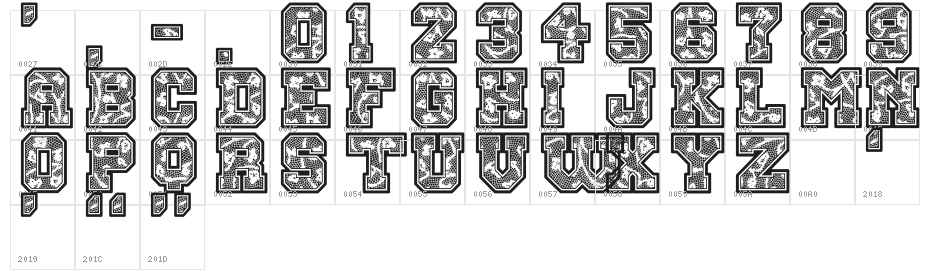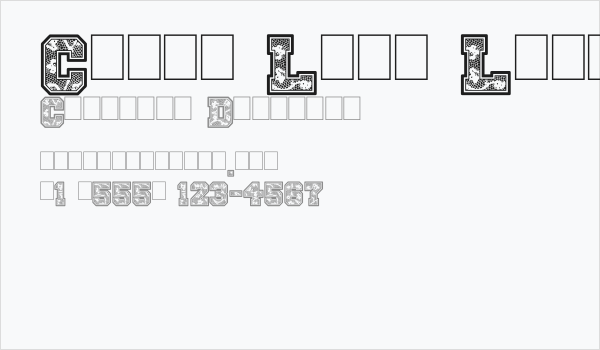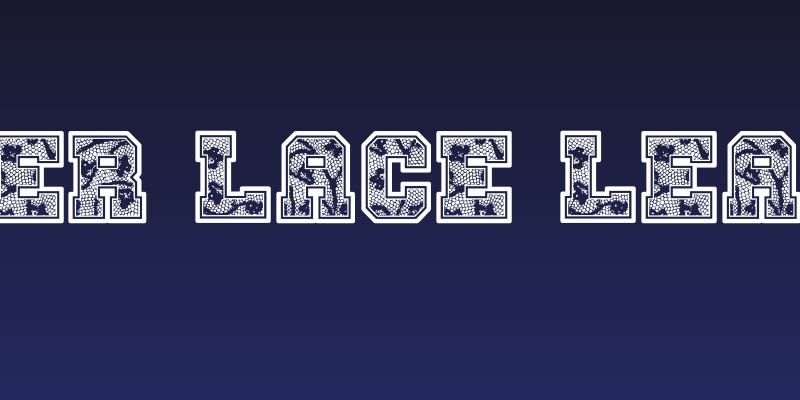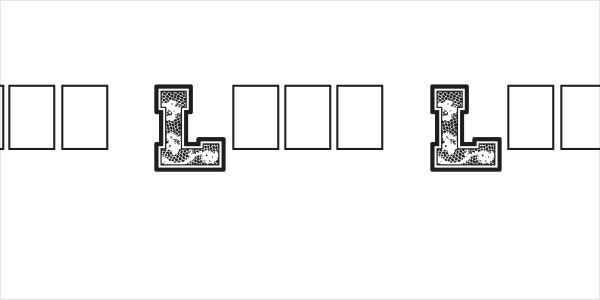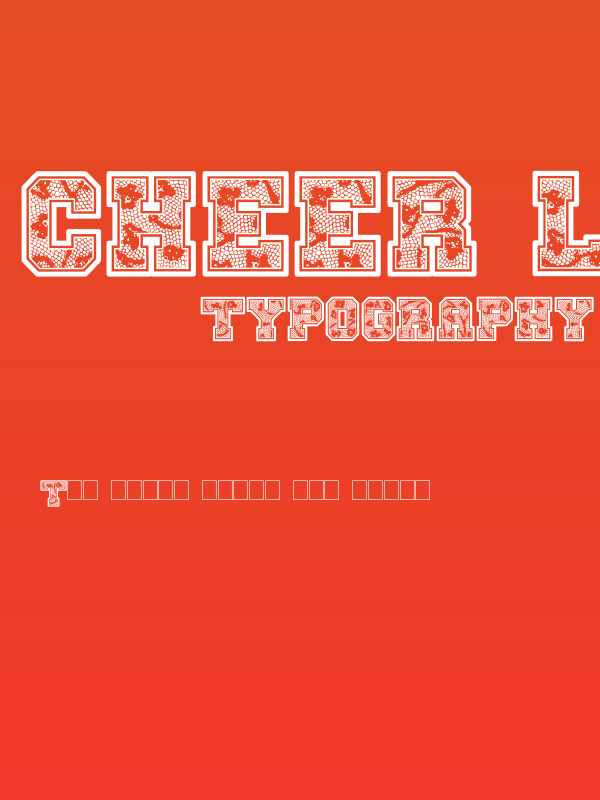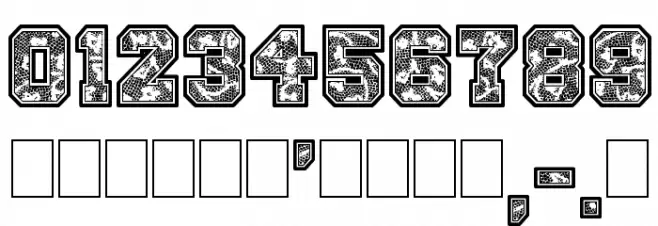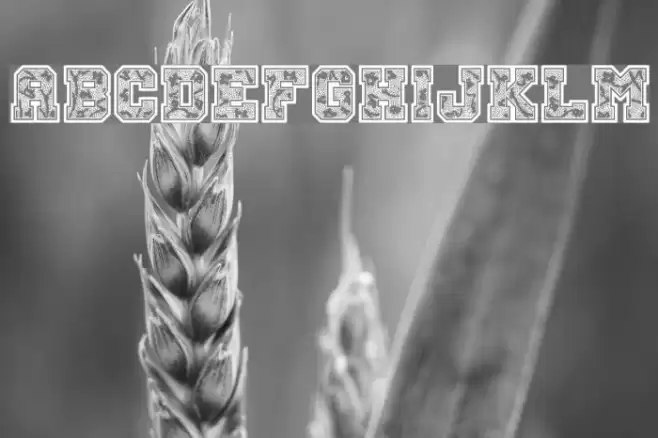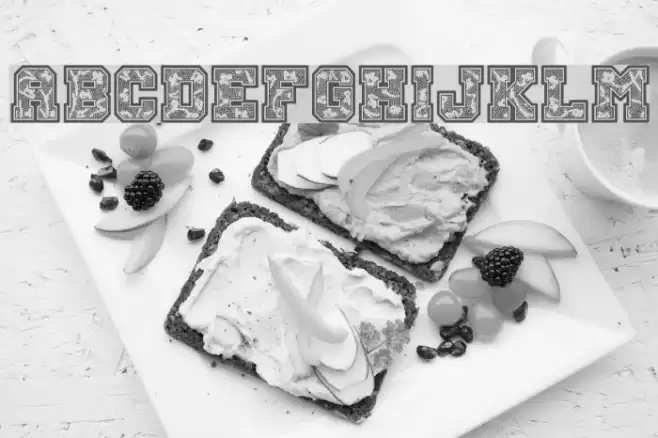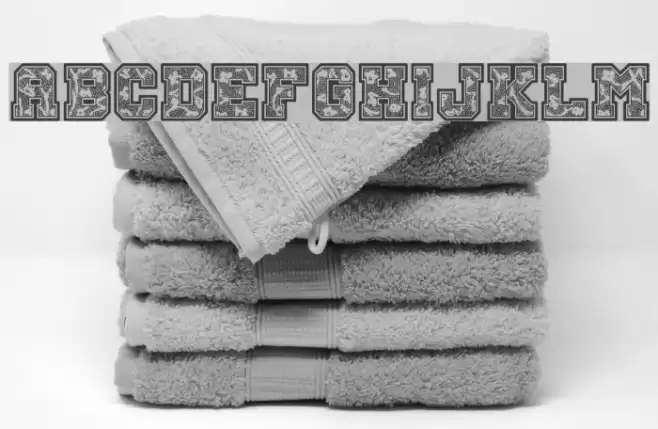
Cheer Lace Leader Font
Cheer Lace Leader Description
This font features a bold, decorative style with intricate lace-like patterns filling each character. The uppercase letters are designed with a strong, blocky structure, giving them a commanding presence. The numbers follow the same ornate design, ensuring consistency throughout. The detailed patterns within each letter add a unique texture, making the font stand out for creative and artistic projects. Its boldness and decorative elements make it ideal for eye-catching designs.
| Proposed Projects | Ideal for posters, event invitations, branding, and any project requiring a bold, decorative touch. |